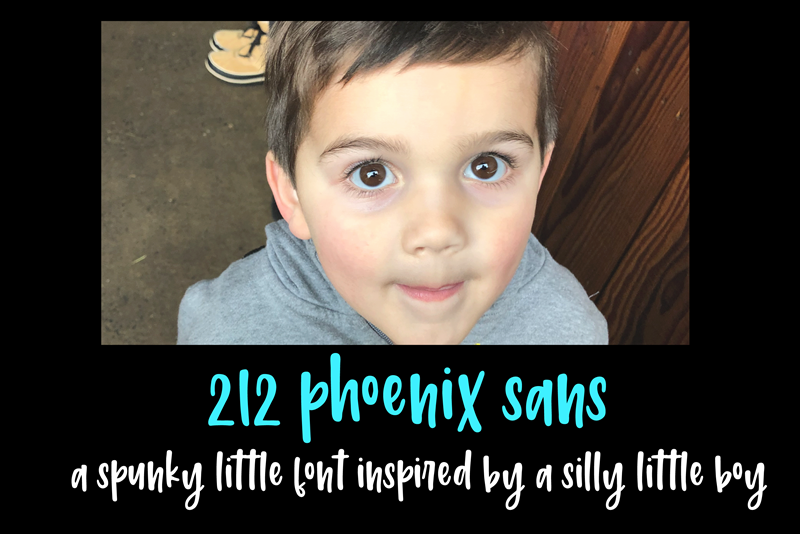
A spunky little sans font inspired by my silly little boy, Phoenix James. This is the demo bare bones version of Phoenix Sans. It is free for personal use. Purchase full Sans and 2 Script versions here: https://www.twenty3stars.com/collections/fonts-by-212-fonts Donations welcome! |